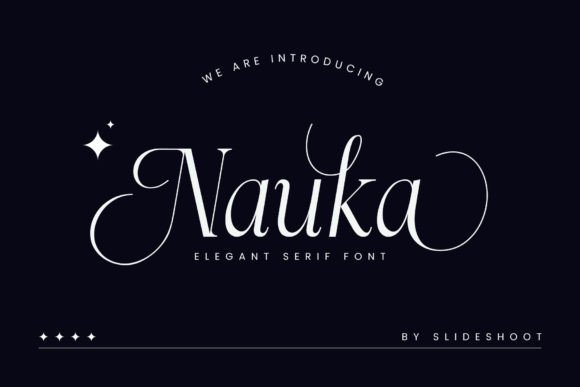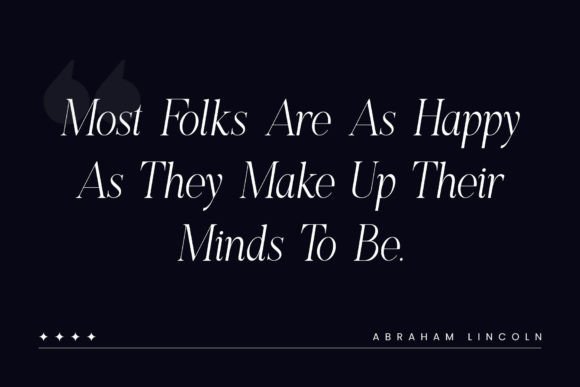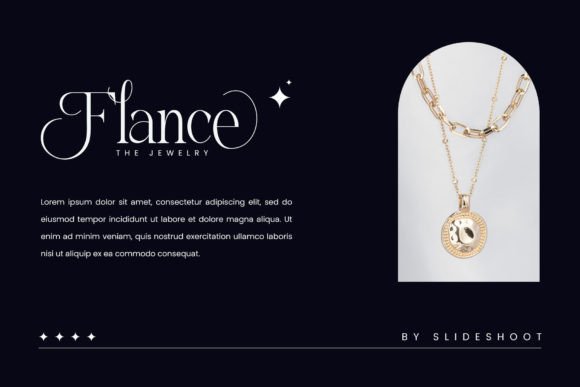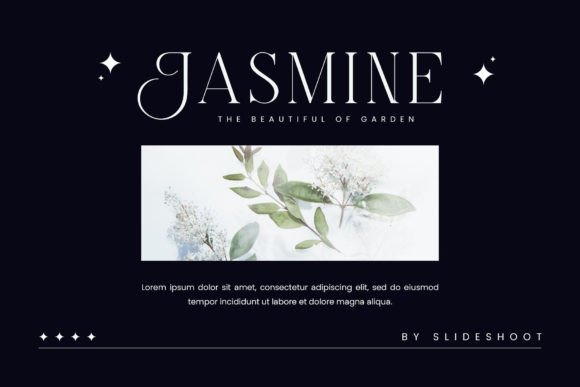
Nauka Font: Elegant Serif Typography for Logo Design & Wedding Invitations
About the Nauka Font
Discover the charm of Nauka Font. This font is a perfect blend of modern aesthetics and classic appeal. Nauka is a an elegant and smooth combine typeface regular and italic serif font. It fits perfectly with invitation card designs, company logos, movie titles, movie names, business cards, book titles, brand names and various other designs.
Nauka’s elegant serifs make it ideal for headlines, branding applications requiring a touch of sophistication, and short-form text on packaging or posters. Its refined nature, however, makes it less suitable for body copy or UI elements where high legibility over long stretches of text is paramount.
Its inherent elegance pairs well with clean sans-serif fonts like Helvetica or Open Sans for a balanced contrast, or a playful script font such as Pacifico for a more whimsical feel. For a modern edge, a geometric sans-serif like Futura could be considered.
Nauka projects an overall sophisticated and refined personality, suitable for brands aiming for a classic yet contemporary image – think luxury goods, high-end services, or artistic endeavors.